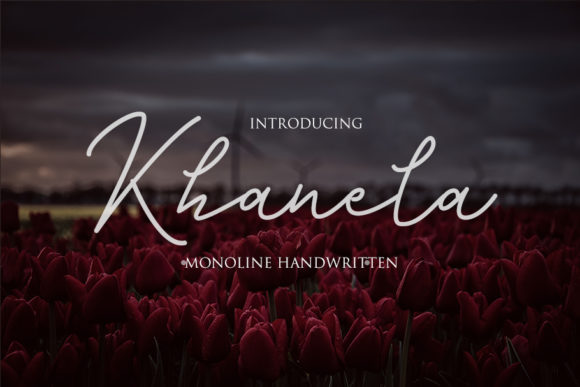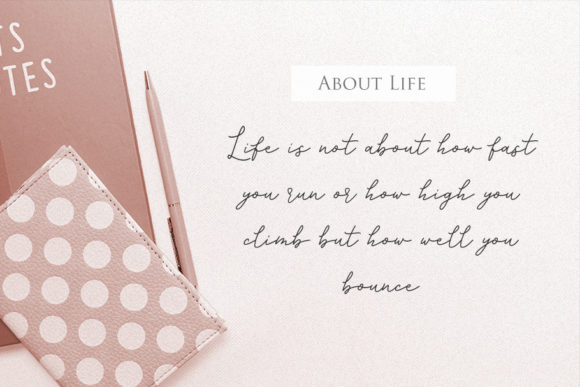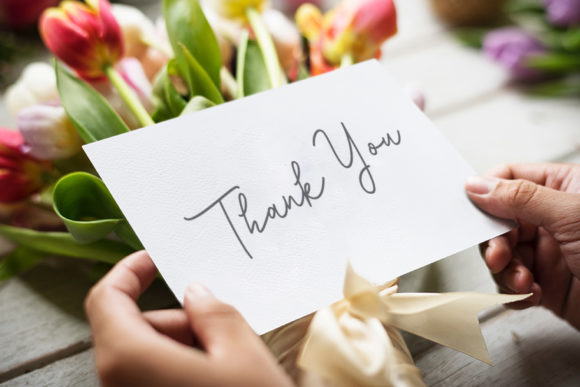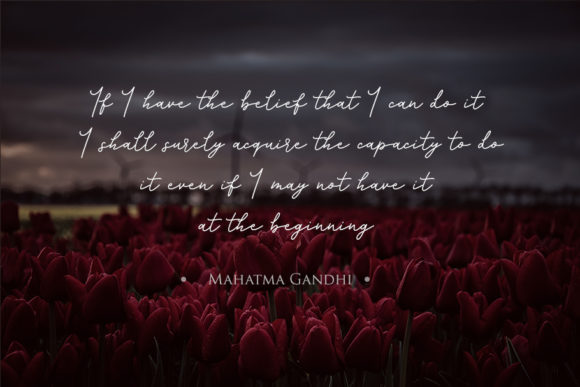
About Khanela Font
The Khanela is a handwritten monoline script. It has a casual, yet elegant look, and has a good readability.
It can be incorporated into many designs including quotes texts, wedding invitations, posters and you can create custom cards to give to your friends and family.